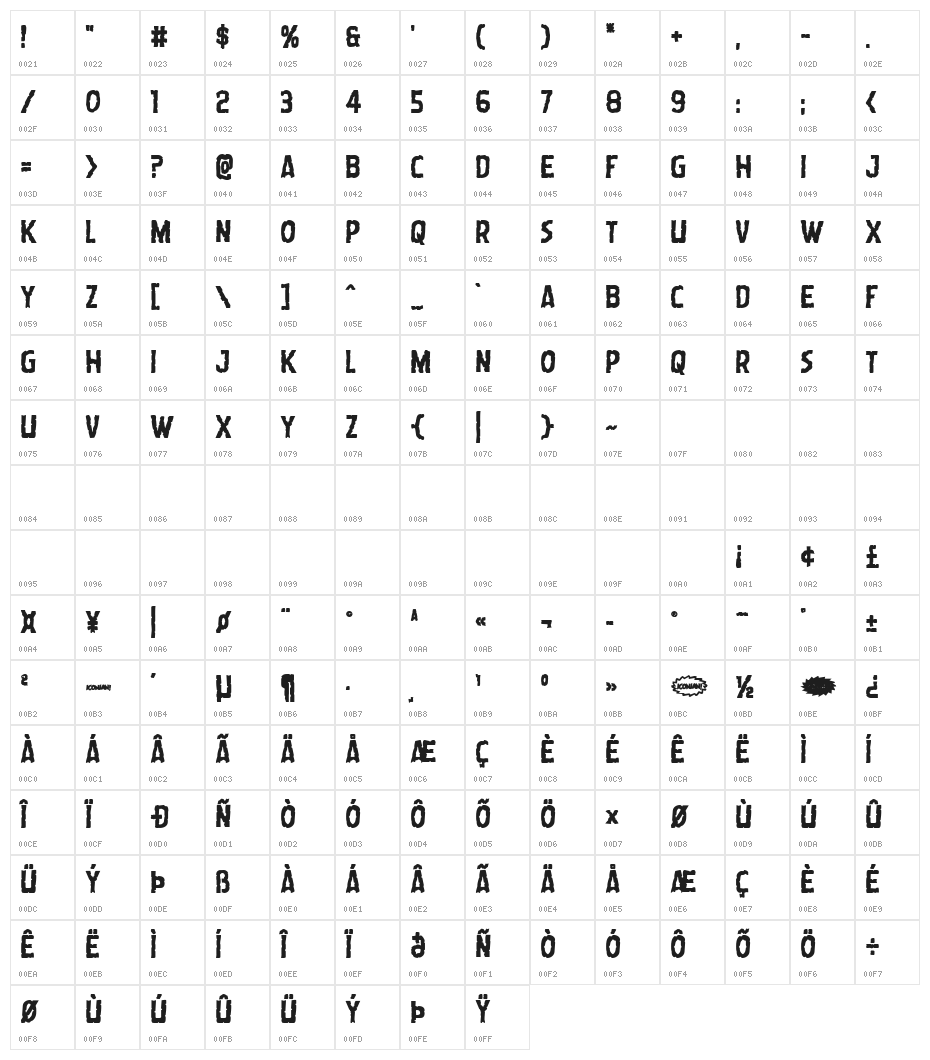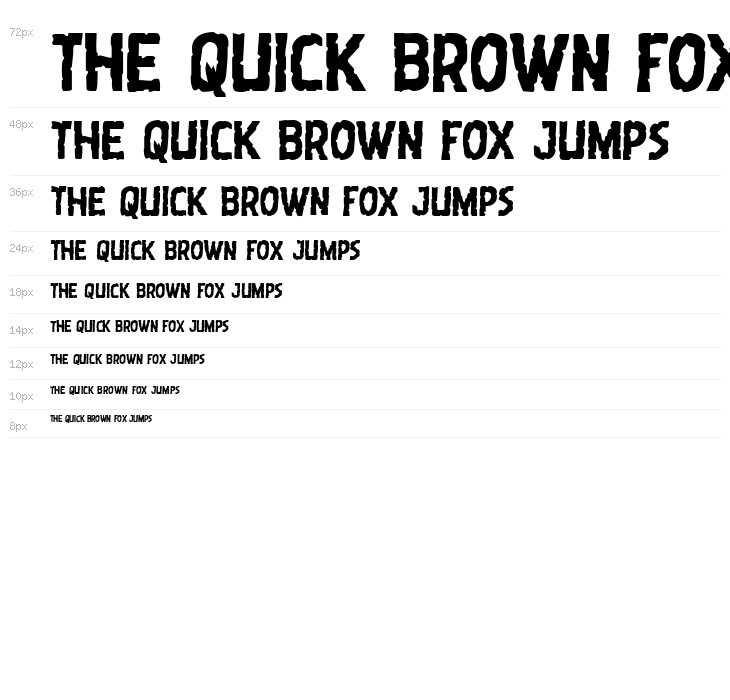
Worm Cuisine Bold Font
Worm Cuisine Bold Description
This font features a bold and rugged design, characterized by its uneven, organic strokes that give it a hand-crafted appearance. The letters have a distressed texture, adding a sense of rawness and authenticity. The uppercase and lowercase characters maintain a consistent style, with a slightly irregular baseline that enhances its unique look. The numbers and special characters follow the same aesthetic, ensuring a cohesive visual experience. This font's boldness and distinctive style make it stand out, perfect for projects that require a strong, impactful presence.